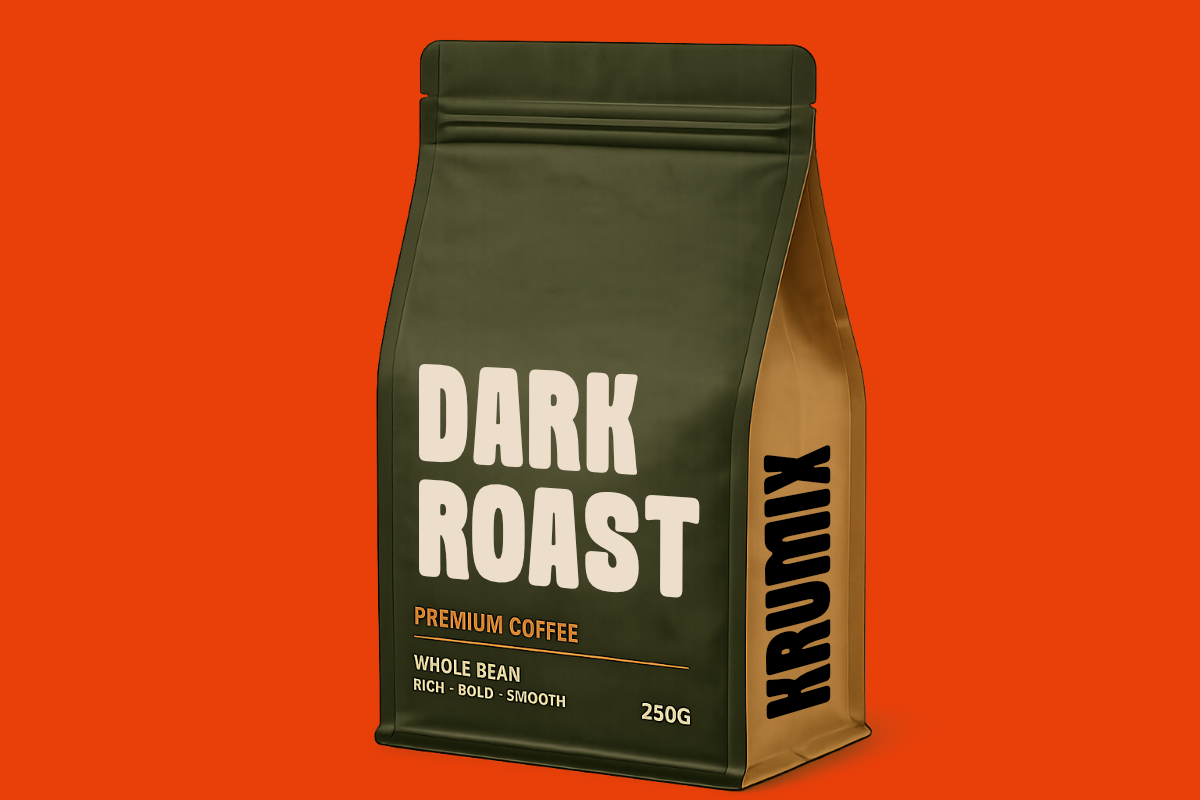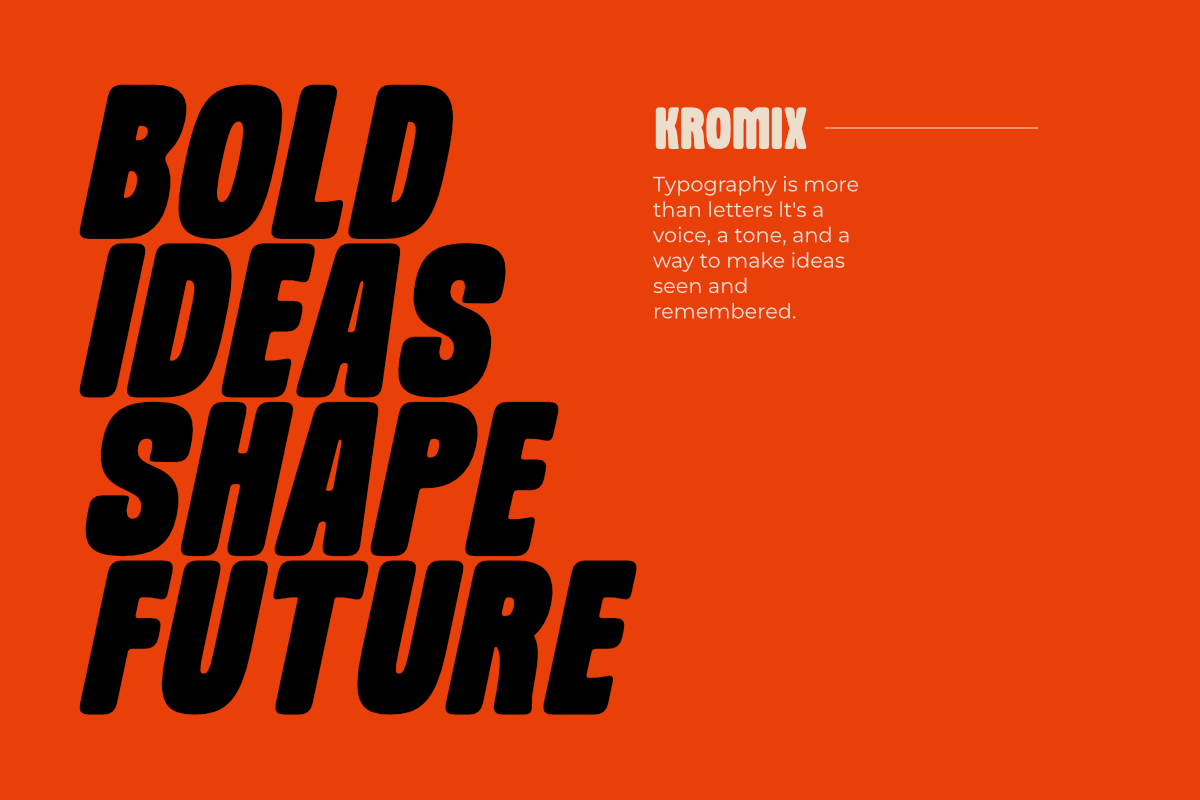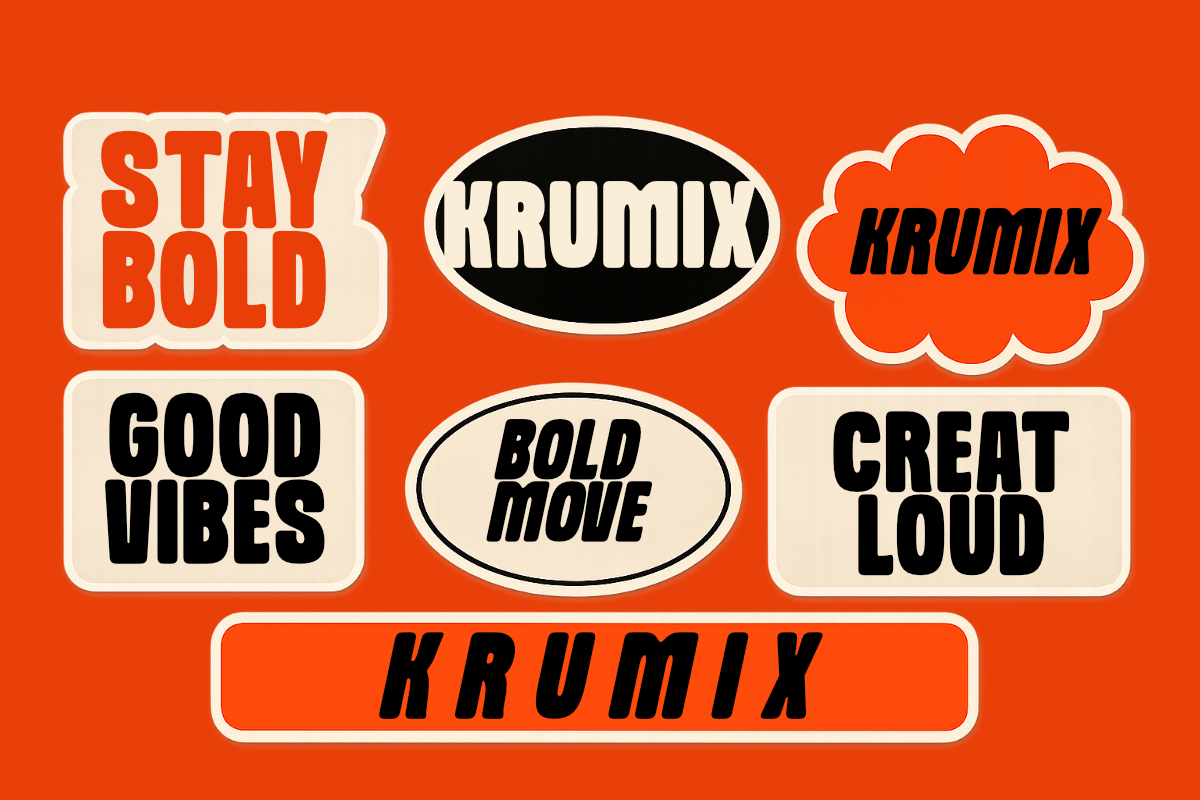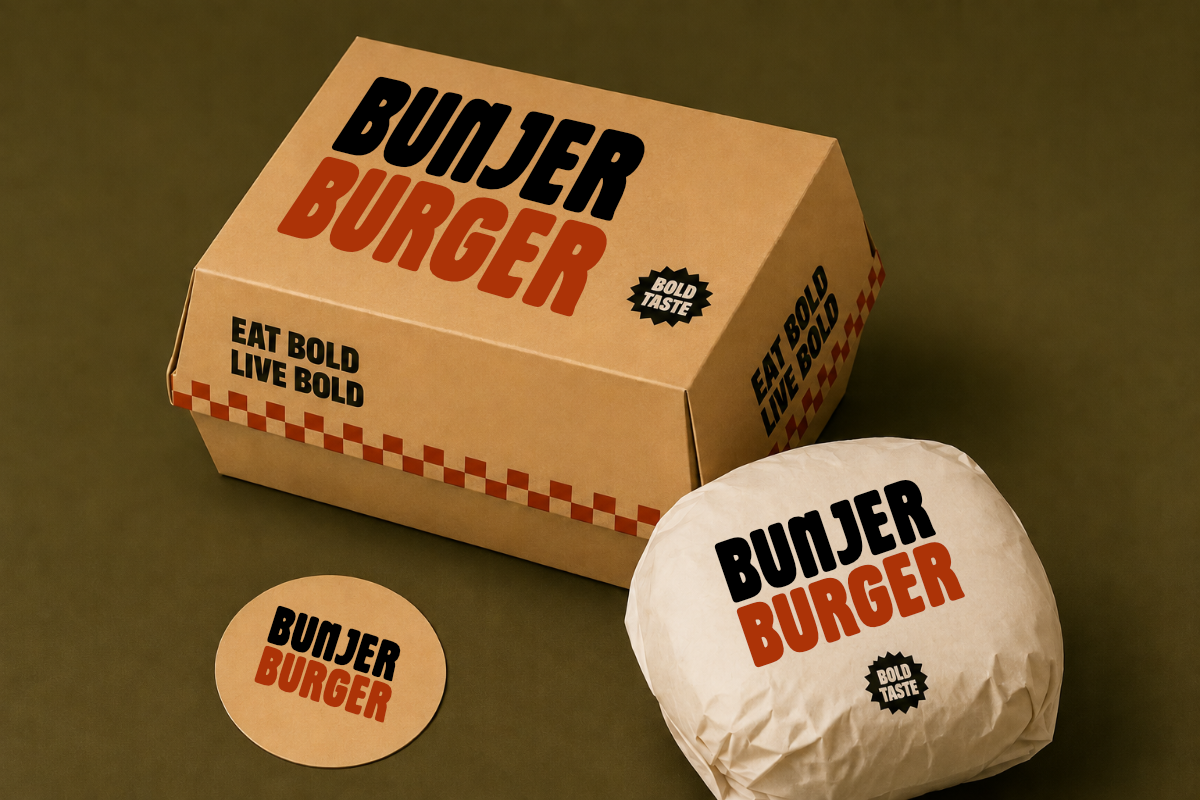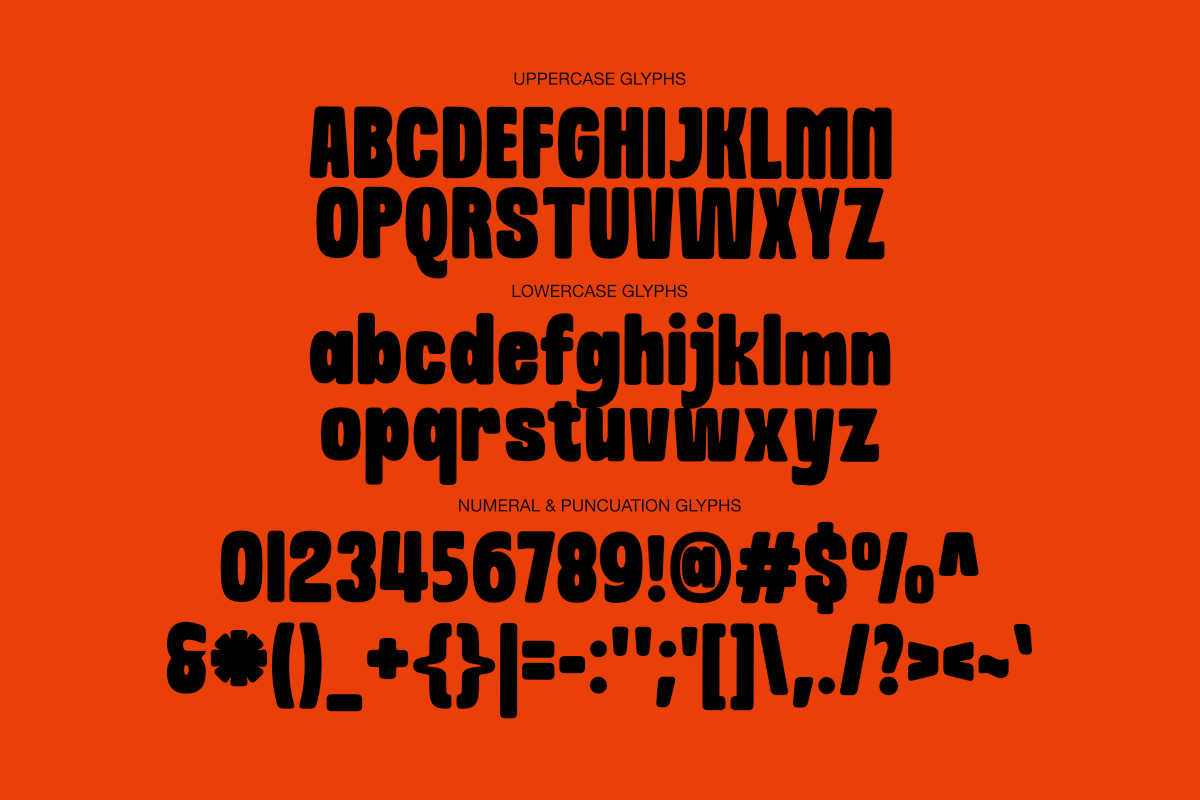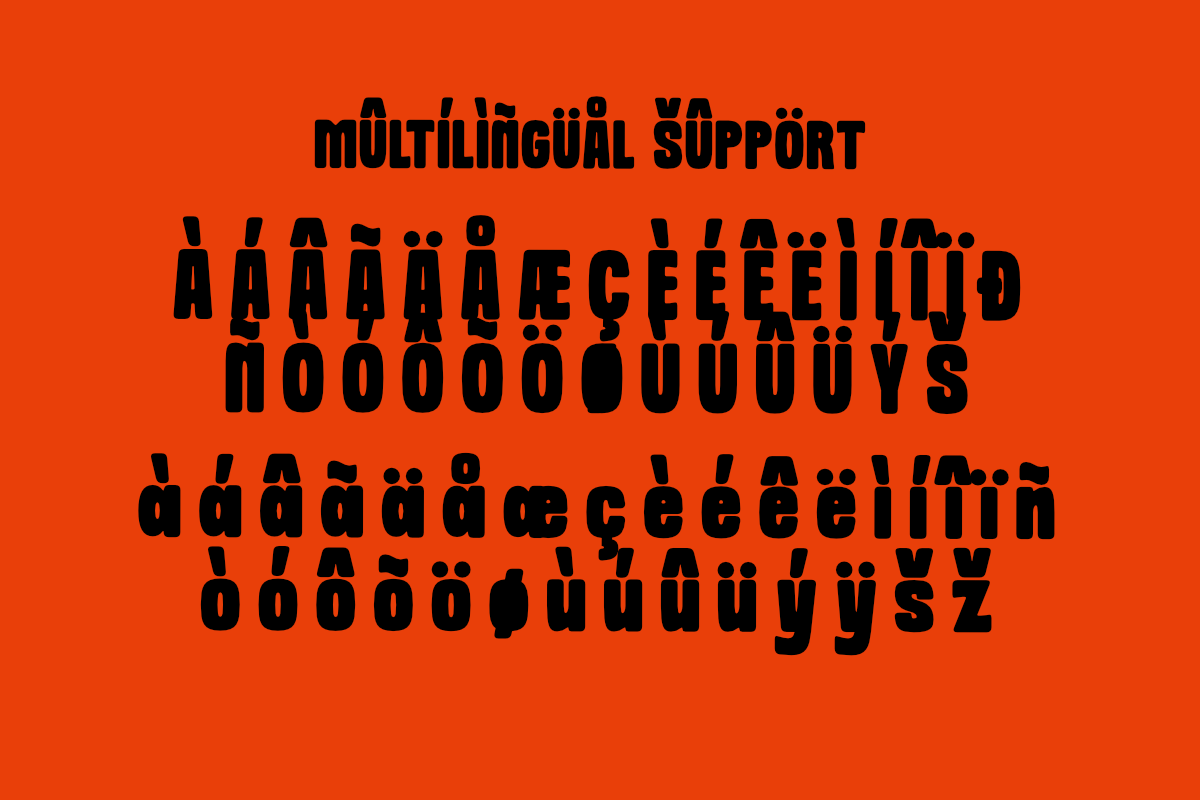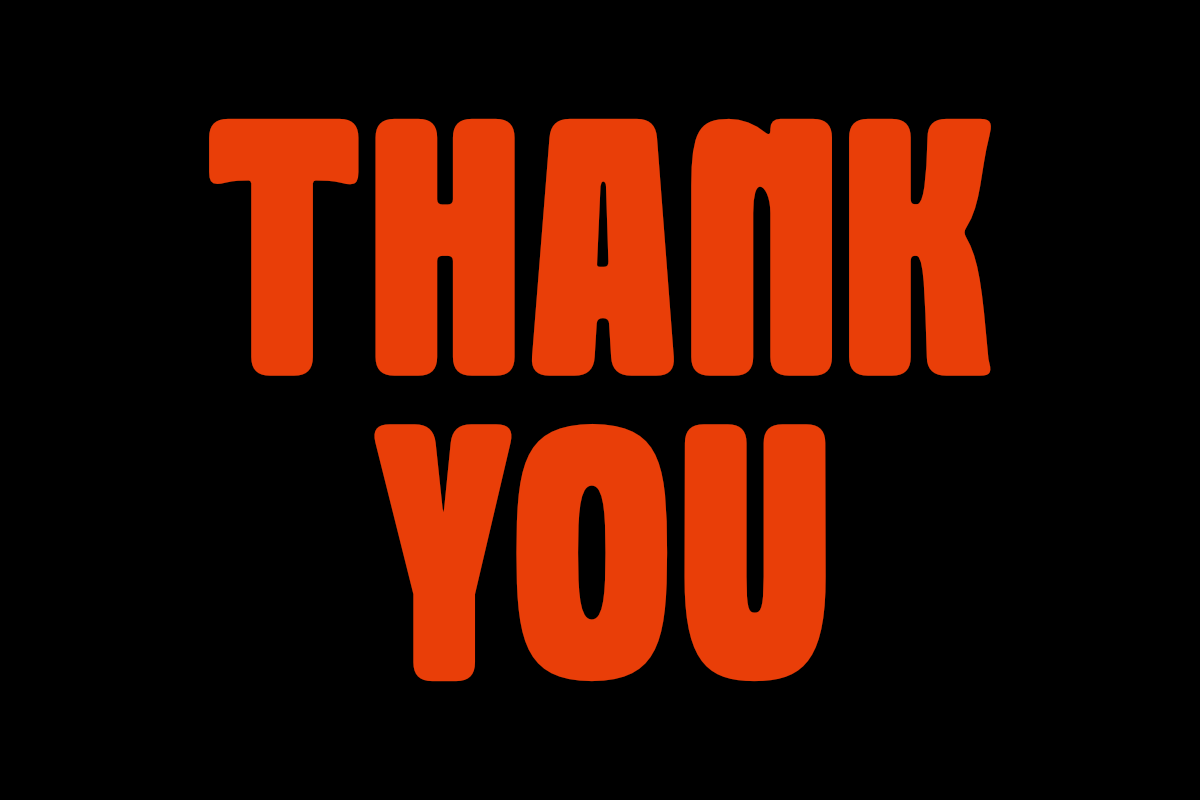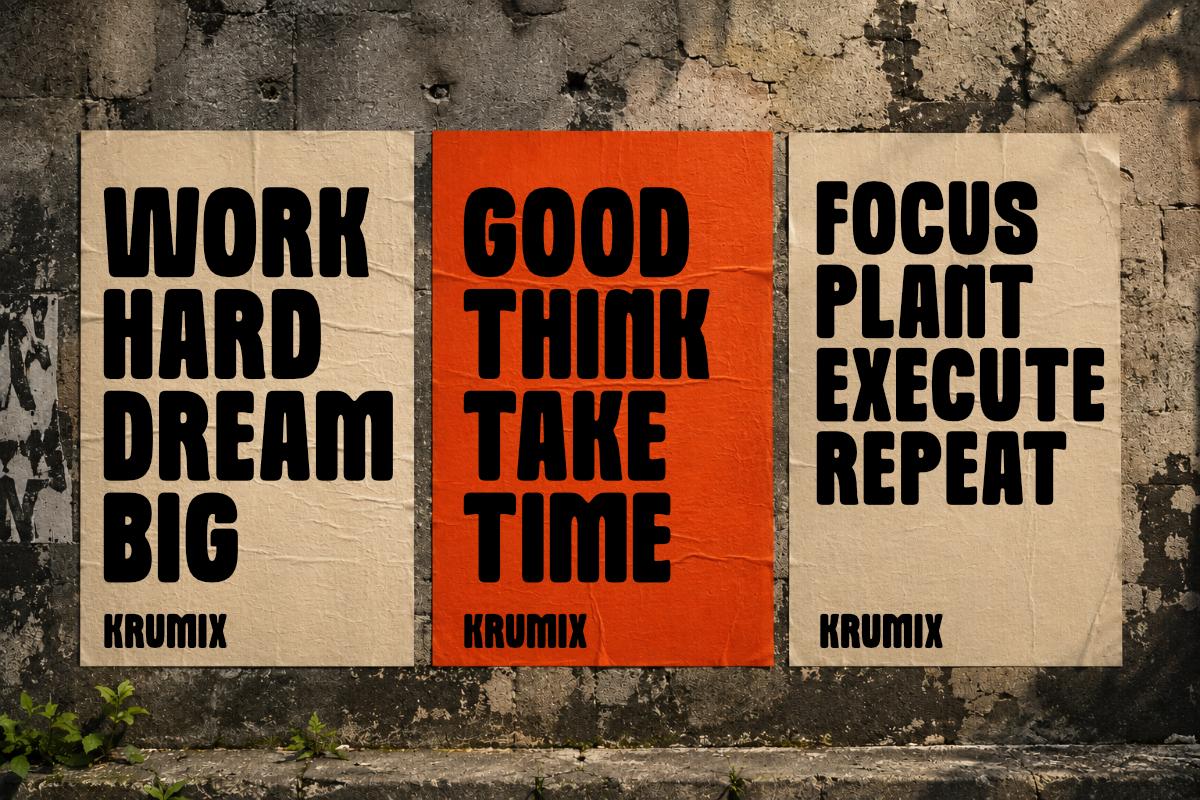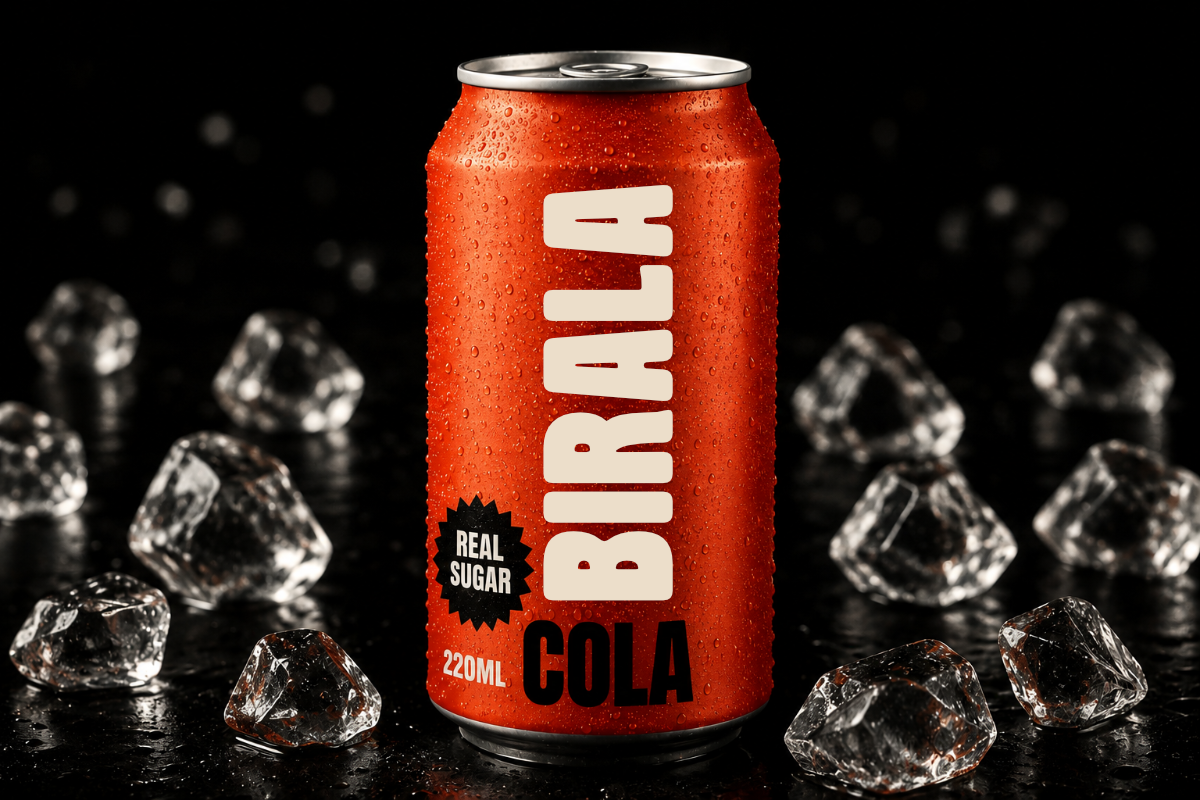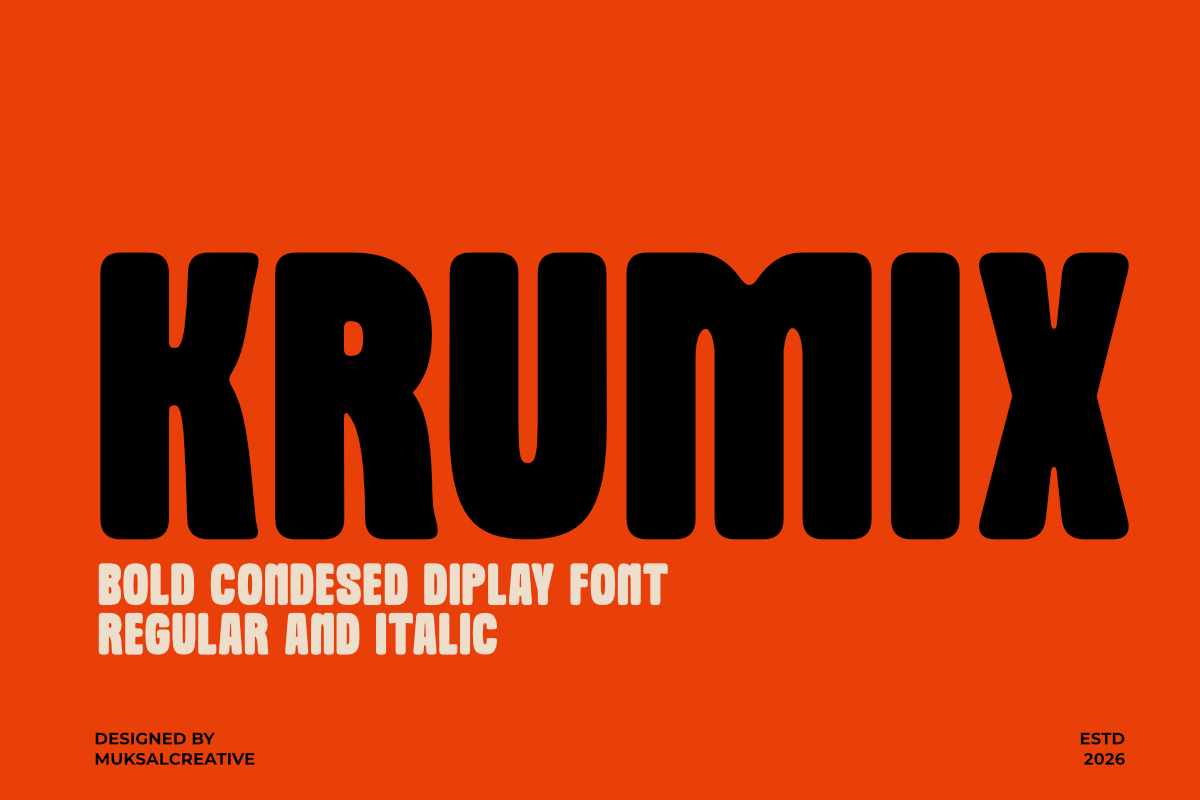
Krumix Bold Condensed Display Font
KRUMIX is a bold condensed display font designed to make a powerful visual statement. With its strong vertical proportions, rounded corners, and confident personality, KRUMIX delivers maximum impact while maintaining excellent readability.
Inspired by contemporary poster design, urban branding, and modern editorial layouts, KRUMIX is perfect for designers who want typography to become the centerpiece of their work. Whether you're creating eye-catching headlines or bold brand identities, KRUMIX brings energy, confidence, and character to every project.
Its condensed structure allows more words to fit into limited spaces without sacrificing visual strength, making it ideal for high-impact compositions.
Posters
Editorial Design
Branding
Logos
Packaging
Billboard Design
Magazine Covers
Advertising
Event Promotions
Food & Beverage Branding
Creative Studio Projects
Clean & Professional Design
KRUMIX is built for designers who love bold typography and modern visual communication. From street-inspired graphics to premium branding, it gives every design a confident and memorable presence.